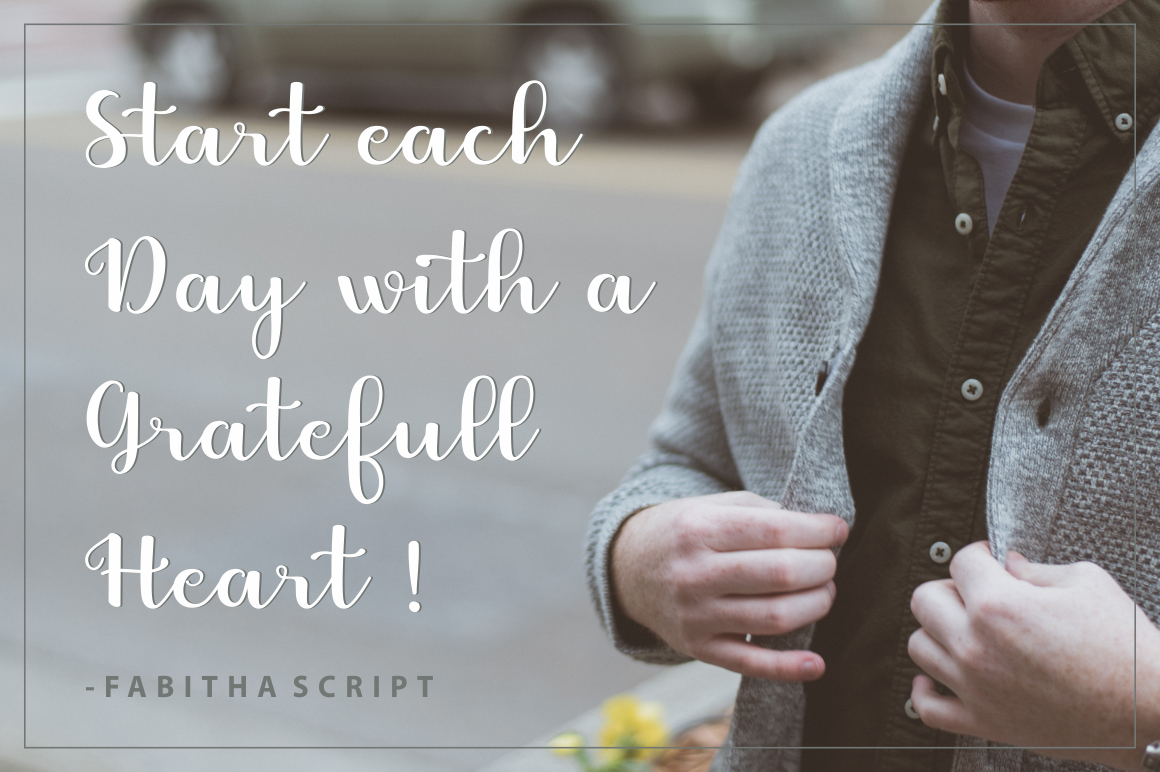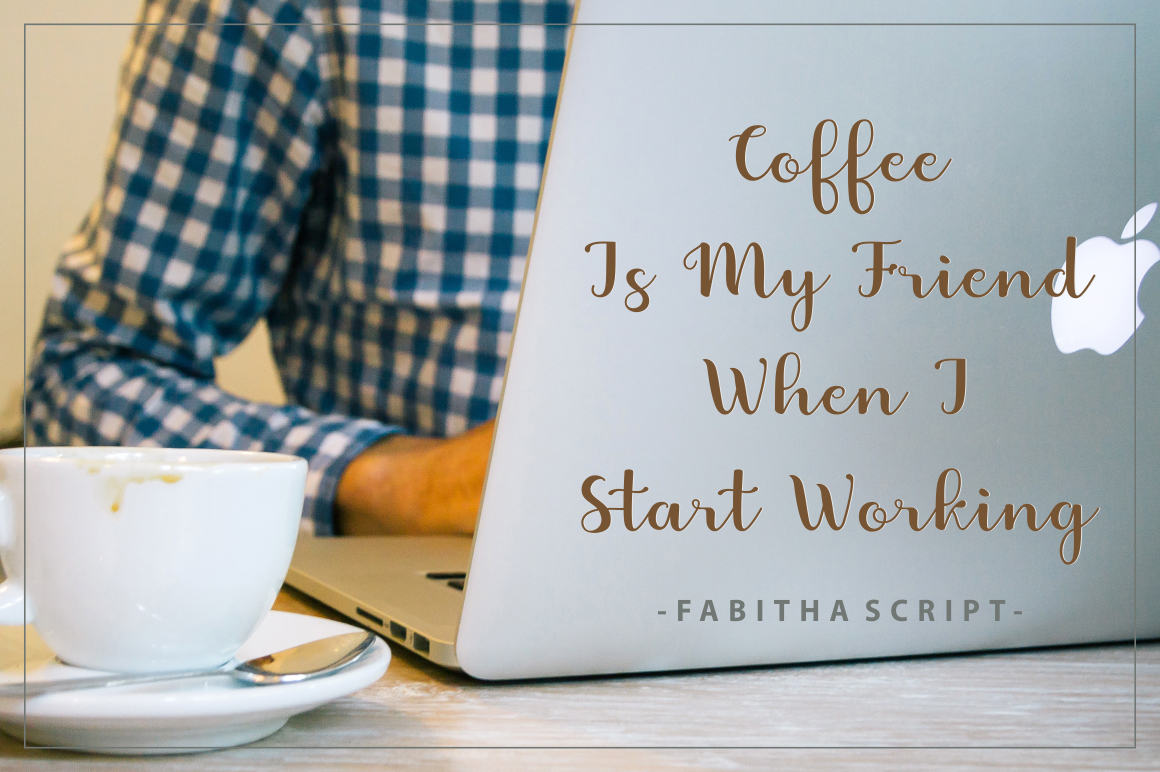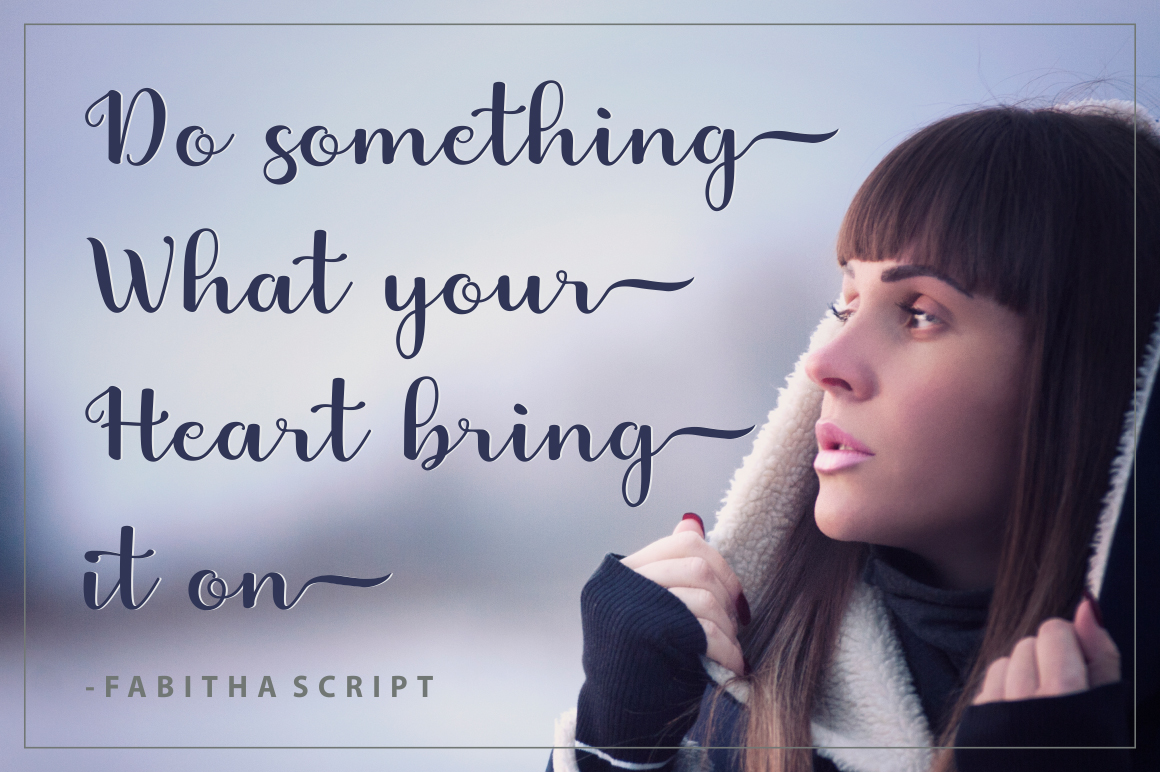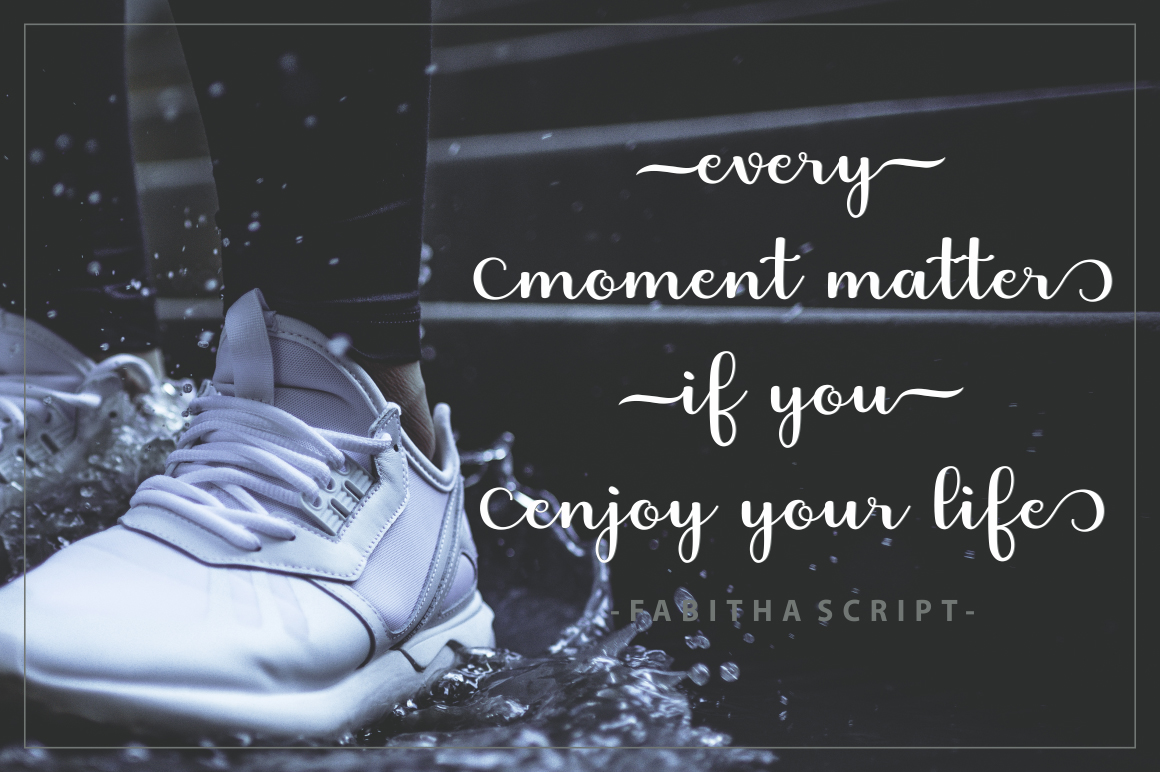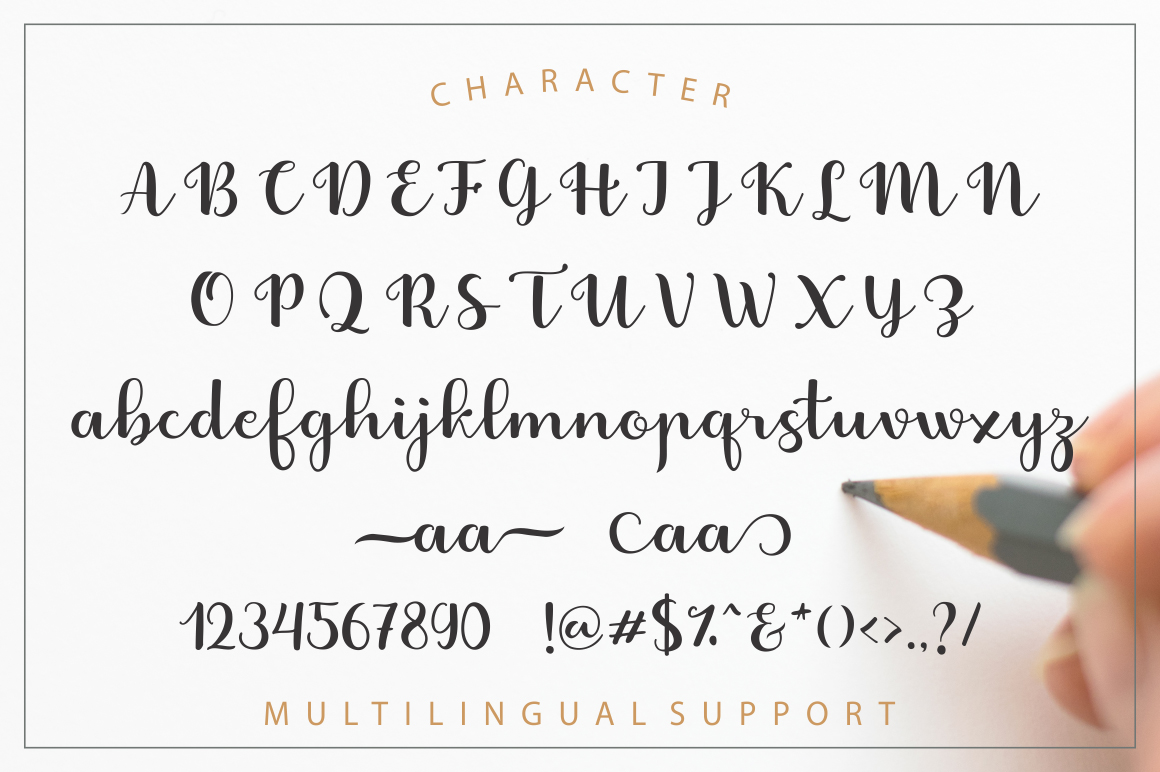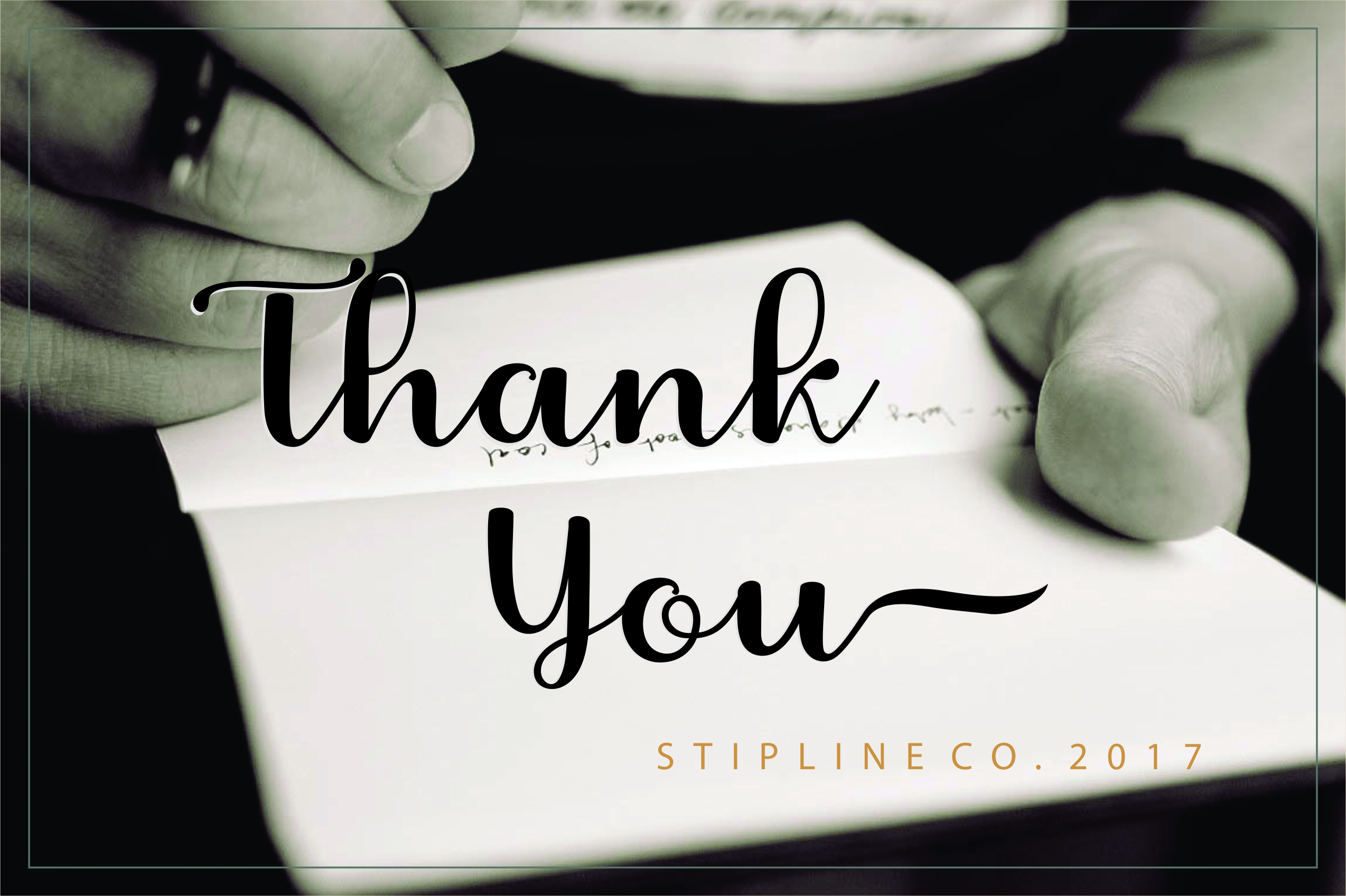
Introducing the Elegance of Fabitha Font: Elevate Your Designs with Modern Handwritten Calligraphy
In the realm of typography, fonts play a pivotal role in conveying messages, expressing emotions, and creating lasting impressions. Among the myriad of fonts available to designers and crafters, the Fabitha Font stands out for its unique blend of modernity and classic elegance. Described as a modern, handwritten calligraphy script, Fabitha is not just a font; it’s an experience. It’s fresh, classy, and designed to infuse a luxurious feel into your designs.
The Essence of Fabitha Font
Fabitha Font embodies the beauty of handwritten calligraphy with a modern twist. Its fluid strokes and elegant ligatures make it a versatile choice for a wide range of design projects. Whether you’re working on a branding project, crafting beautiful wedding invitations, or designing sophisticated packaging, Fabitha brings a touch of luxury and refinement. Its modern appeal ensures that your designs are contemporary and engaging, making it perfect for projects that demand a fresh and stylish look.
Why Choose Fabitha Font?
There are several reasons why designers and crafters are gravitating towards Fabitha Font:
- Versatility: Fabitha can be used across various design projects, from digital platforms like websites and social media graphics to print materials such as brochures, posters, and business cards.
- Elegance: Its calligraphic nature lends an air of sophistication and elegance to any design, making it ideal for luxury brands, high-end products, and special occasions.
- Readability: Despite its elegant and cursive nature, Fabitha maintains a high level of readability, ensuring that your message is conveyed clearly and effectively.
- Customization: Being a modern font, Fabitha offers possibilities for customization, allowing designers to tailor the font to fit their specific design needs.
Applications of Fabitha Font
The applications of Fabitha Font are vast and varied. Here are a few ways you can leverage this beautiful font:
- Branding and Logotypes: Use Fabitha to create a memorable brand identity that exudes elegance and sophistication.
- Wedding and Event Stationery: Add a touch of luxury to your wedding invitations, save-the-date cards, and event programs.
- Packaging Design: Elevate your product packaging with a font that communicates luxury and quality.
- Digital Media: Incorporate Fabitha into your website design, social media posts, and digital advertisements to stand out in the digital landscape.
Tips for Using Fabitha Font Effectively
To maximize the impact of Fabitha Font in your designs, consider the following tips:
- Pair it with Simplicity: Let Fabitha be the centerpiece by pairing it with simpler fonts that complement its elegance.
- Use it Sparingly: While Fabitha is beautiful, using it sparingly can make your design more impactful. Consider using it for headings or key messages.
- Experiment with Colors: Don’t limit yourself to black and white. Experiment with colors that match the mood and theme of your design.
Fabitha Font is more than just a typeface; it’s a design statement. Its modern, handwritten calligraphy script offers a fresh and classy aesthetic that’s ready to give a luxurious feel to your designs. Whether you’re a professional designer or a crafter, Fabitha provides the tools to create visually stunning and memorable pieces. By incorporating Fabitha into your design repertoire, you’re not just choosing a font; you’re embracing an element of elegance and sophistication that can elevate your work to new heights.